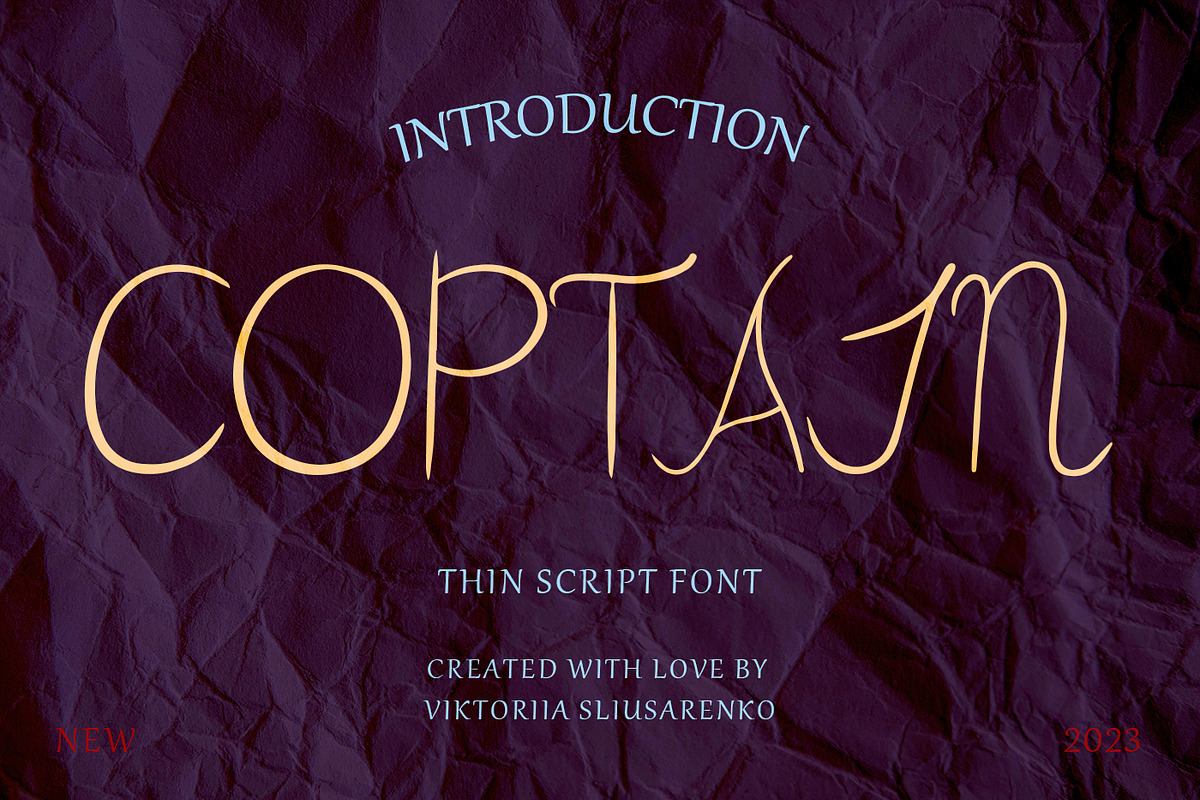
Please note, to use this font for commercial purposes, you must purchase the full version. COPTAIN is an elegant and sophisticated thin script font that brings a graceful, handwritten touch to any design. With its delicate curves and flowing letterforms, this font is perfect for wedding invitations, logos, branding, and personal projects. Whether you're creating a chic design or a refined logo, COPTAIN adds a timeless, classy feel to your work. Test it out and enjoy free download access for personal use. Experience the refined beauty of COPTAIN - Thin Script Font Free Download before purchasing the commercial license. Add elegance and style to your designs with this exquisite font.